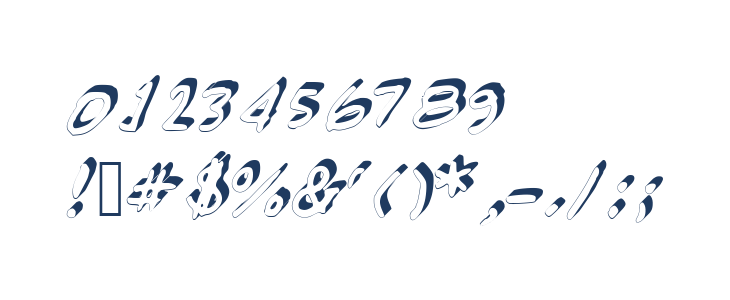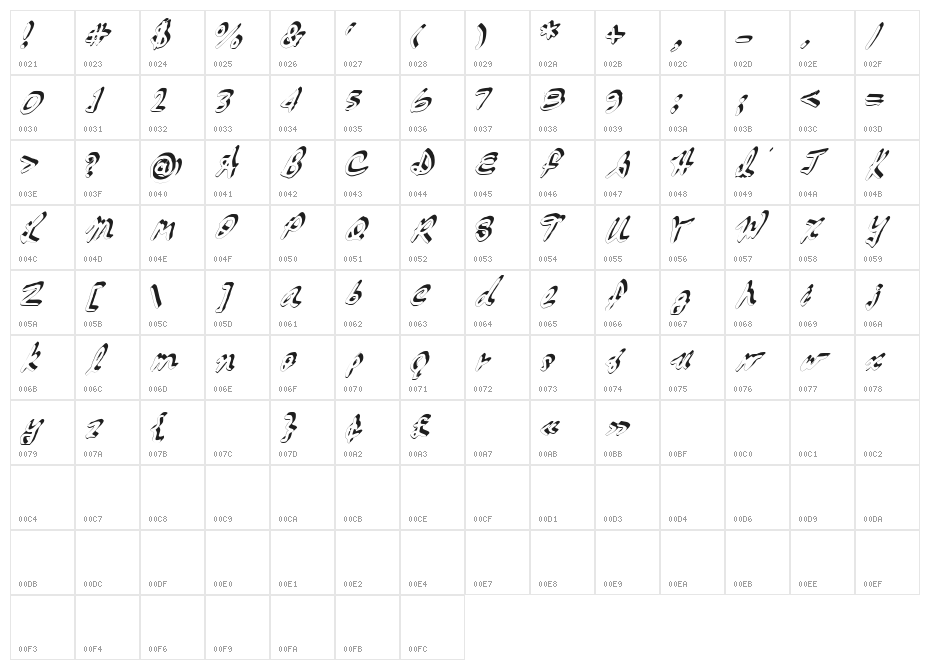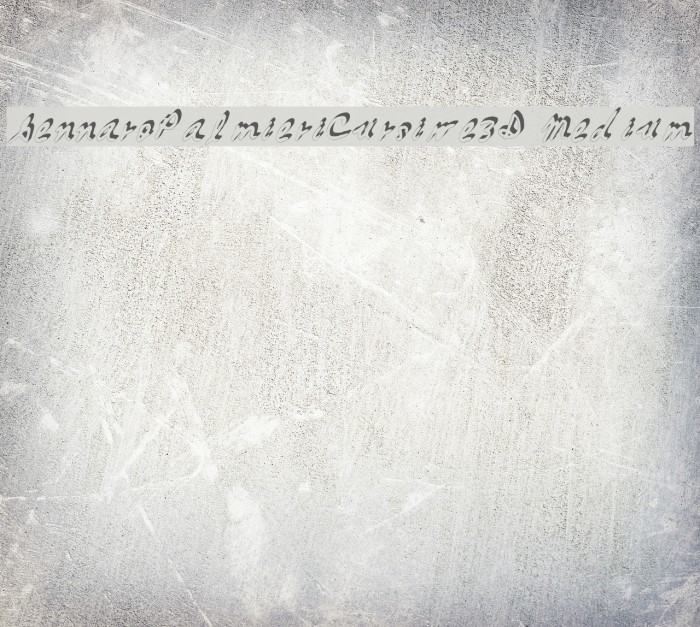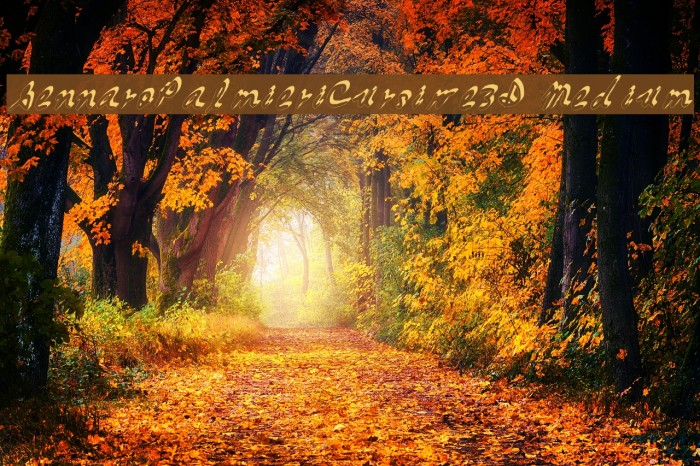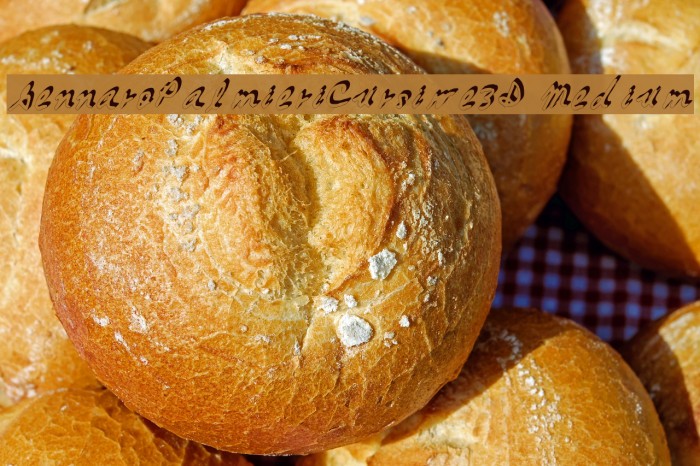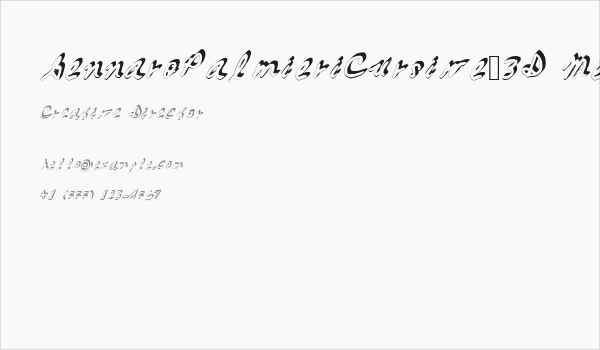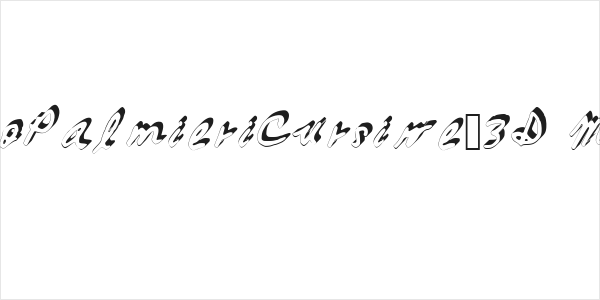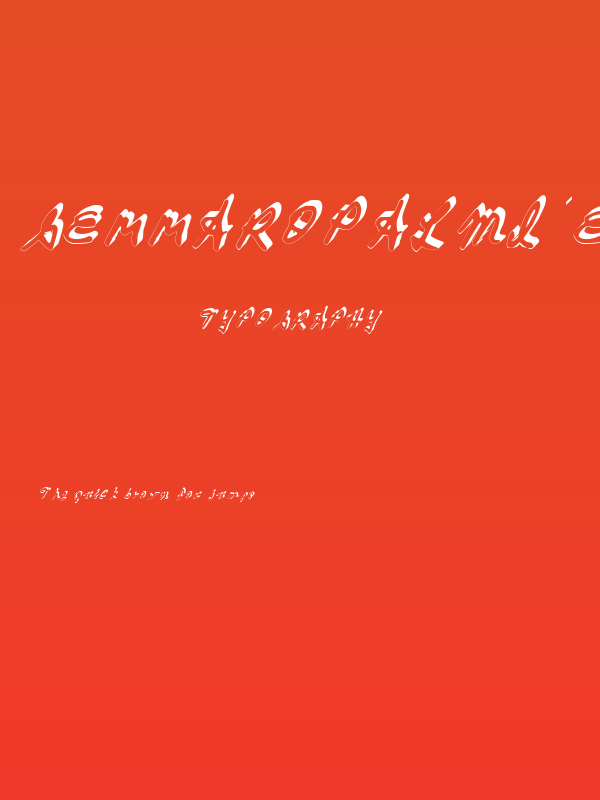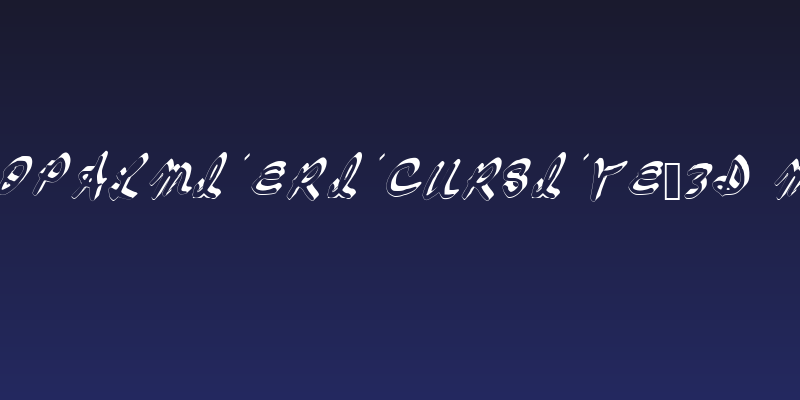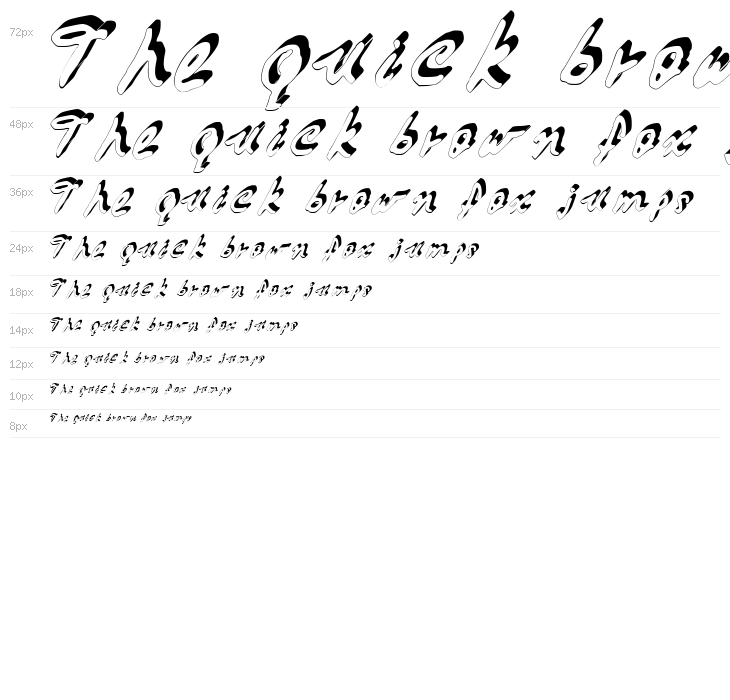
GennaroPalmieriCursive_3D Medium Font
GennaroPalmieriCursive_3D Medium Description
This font features a dynamic cursive style with a 3D effect that adds depth and dimension to each character. The letters are fluid and connected, creating a sense of motion and elegance. The bold strokes and shadowing give it a striking appearance, making it stand out in any design. The uppercase and lowercase letters maintain a consistent style, while the numerals and special characters complement the overall aesthetic. This font is ideal for projects that require a touch of sophistication and creativity.
Use CaseLogos, Headlines, Invitations
Proposed ProjectsIdeal for branding, invitations, posters, and any creative design projects that require a sophisticated touch.